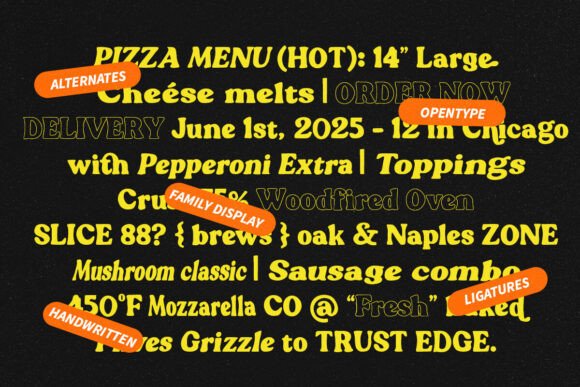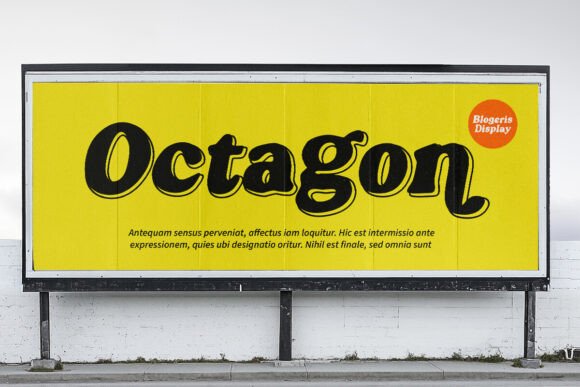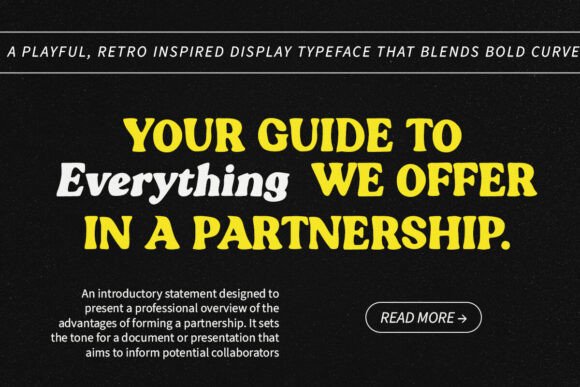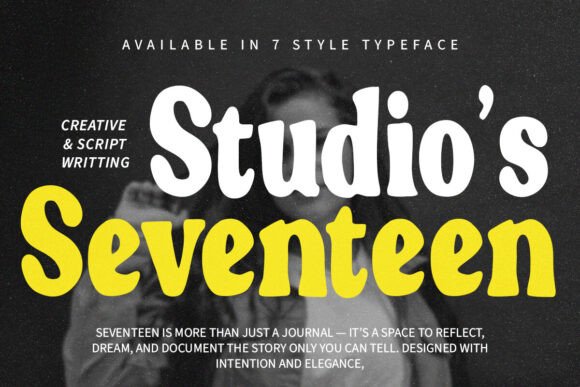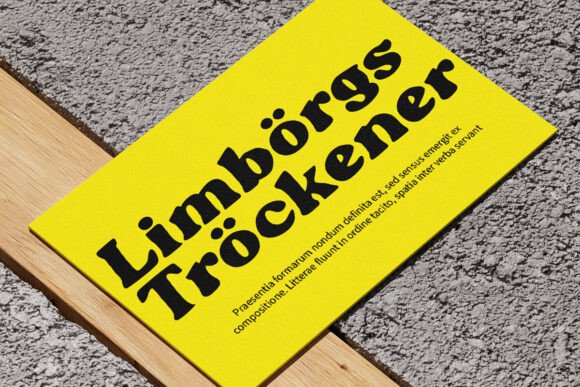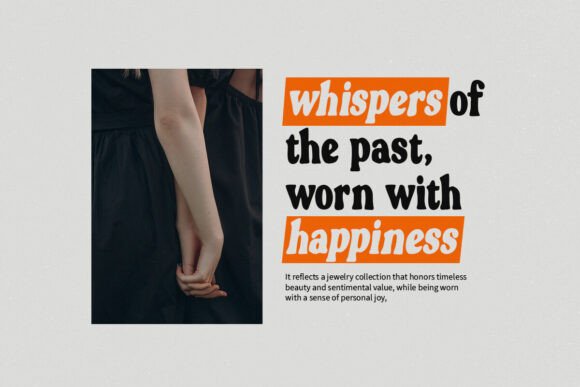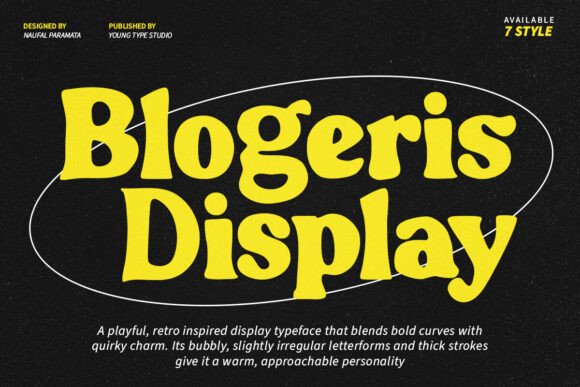
Introducing Blogeris Display Font: A Playful, Retro-Inspired Typeface
In the world of typography, fonts play a crucial role in conveying the tone and personality of a design. For designers and crafters looking to add a touch of playfulness and whimsy to their projects, Blogeris Display Font is an excellent choice. This bold, retro-inspired display typeface is designed to make a statement, with its unique blend of curves, quirky charm, and handcrafted feel.
The Characteristics of Blogeris Display Font
Blogeris Display Font is characterized by its bold, bubbly letterforms that exude a sense of fun and playfulness. The font’s thick strokes and irregular shapes give it a handcrafted, organic feel that adds warmth and personality to any design. The unique rhythm of the font makes it stand out in headlines, posters, branding, and other creative projects.
What Makes Blogeris Display Font Special?
So, what sets Blogeris Display Font apart from other fonts? Here are a few key features that make it a standout:
- Playful and Retro-Inspired: Blogeris Display Font has a distinctly retro feel, with bold curves and quirky shapes that evoke a sense of nostalgia and playfulness.
- Handcrafted Feel: The font’s irregular shapes and thick strokes give it a handcrafted, organic feel that adds a touch of warmth and personality to any design.
- Versatile: Blogeris Display Font is perfect for a wide range of design projects, from headlines and posters to branding and packaging.
- Easy to Read: Despite its bold and playful nature, Blogeris Display Font is surprisingly easy to read, making it perfect for designs that need to communicate a message quickly and effectively.
Using Blogeris Display Font in Your Designs
Blogeris Display Font is incredibly versatile, and can be used in a wide range of design projects. Here are a few ideas to get you started:
- Headlines and Posters: Use Blogeris Display Font to create bold, eye-catching headlines and posters that grab attention and make a statement.
- Branding and Packaging: Add a touch of personality to your brand with Blogeris Display Font, perfect for logos, packaging, and other marketing materials.
- Social Media Graphics: Use Blogeris Display Font to create engaging social media graphics that stand out in crowded feeds.
- Invitations and Announcements: Add a touch of whimsy to your invitations and announcements with Blogeris Display Font, perfect for parties, events, and other celebrations.
Tips for Pairing Blogeris Display Font with Other Fonts
When pairing Blogeris Display Font with other fonts, it’s essential to balance its bold and playful nature with complementary fonts that add contrast and harmony to your design. Here are a few tips to keep in mind:
- Pair with Sans-Serif Fonts: Pair Blogeris Display Font with sans-serif fonts like Arial, Helvetica, or Open Sans to create a clean and modern contrast.
- Pair with Script Fonts: Combine Blogeris Display Font with script fonts like Pacifico or Great Vibes to add a touch of elegance and sophistication.
- Experiment with Contrasting Weights: Pair Blogeris Display Font with lighter or heavier fonts to create visual interest and hierarchy in your design.
| Font Name | Blogeris Display Font |
| Author | Youngtype |
Blogeris Display Font is a unique and versatile typeface that adds a touch of playfulness and whimsy to any design. With its bold curves, quirky charm, and handcrafted feel, it’s perfect for designers and crafters looking to create engaging and visually appealing designs. Whether you’re working on a headline, poster, branding project, or social media graphic, Blogeris Display Font is an excellent choice.